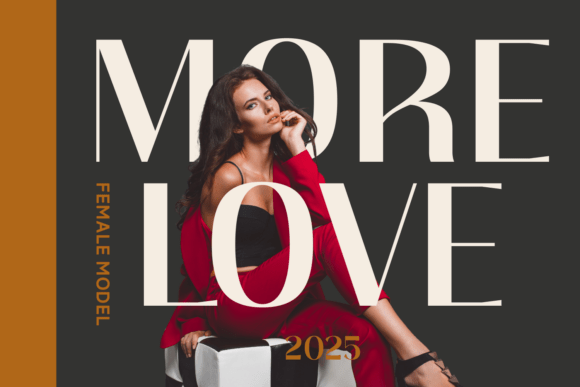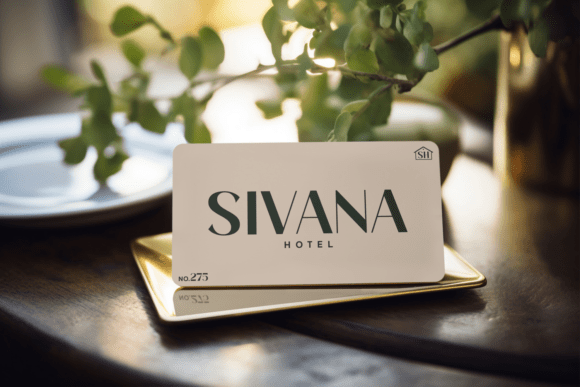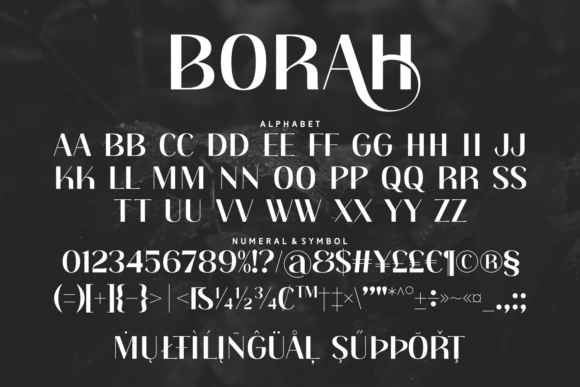
Introducing Borah Font: The Epitome of Modern Elegance
In the world of typography, few fonts manage to strike a balance between modern sleekness and luxurious sophistication. Borah Font is one such exceptional typeface that seamlessly blends geometric precision with an air of elegance, making it a go-to choice for designers and crafters aiming to elevate their visual projects.
The Design Philosophy Behind Borah
Borah Font is characterized by its sharp lines, graceful curves, and high-contrast strokes. This thoughtful design imbues Borah with a sense of luxury and refinement, setting it apart from more conventional typefaces. The sharp lines provide a crisp, modern look, while the graceful curves add a touch of softness and approachability. The high-contrast strokes further enhance the font’s sophisticated appeal, making it perfect for applications where elegance is paramount.
Versatility and Application
One of the standout features of Borah Font is its versatility. Its unique character design makes it suitable for a wide range of applications, from branding and fashion editorials to upscale packaging and high-end logos. Whether you’re creating a luxury brand identity, designing a fashion magazine spread, or crafting bespoke packaging for a premium product, Borah Font offers the perfect blend of style and sophistication.
Branding and Logos
For businesses looking to establish a high-end brand identity, Borah Font is an excellent choice. Its elegant and modern design ensures that logos and branding materials exude sophistication and class. The font’s unique character ensures that your brand stands out in a crowded marketplace, making a lasting impression on clients and customers.
Fashion Editorials and Magazines
Fashion designers and editorial teams are constantly on the lookout for typography that complements their visually stunning content. Borah Font, with its couture-inspired aesthetic, is perfectly suited for fashion editorials, magazines, and blogs. It adds an artistic sophistication to any fashion spread, enhancing the overall visual appeal and making the content more engaging for readers.
Upscale Packaging
For luxury products, packaging plays a crucial role in conveying the brand’s value and aesthetic. Borah Font, with its luxurious flair, is ideal for creating upscale packaging that reflects the premium quality of the product inside. From high-end cosmetics to luxury food items, Borah ensures that your packaging stands out on store shelves.
Why Choose Borah Font?
Borah Font is not just another typeface; it’s a design statement. Here are a few reasons why designers and crafters are gravitating towards Borah:
- Unique Character: Borah’s distinctive design ensures that your visual projects have a unique edge, setting them apart from the generic and the ordinary.
- Elegance and Sophistication: The font’s inherent elegance makes it perfect for projects that demand a high level of sophistication and class.
- Versatility: Whether it’s branding, editorials, packaging, or logos, Borah adapts seamlessly to various design needs.
- Modern Appeal: Borah’s sleek geometry and sharp lines give it a distinctly modern look, ensuring your designs feel current and fresh.
Borah Font is a game-changer for designers and crafters looking to infuse their visual projects with a touch of modern elegance and luxury. Its unique blend of sleek geometry and sophisticated flair makes it an invaluable asset in any designer’s toolkit. Whether you’re aiming to create stunning branding, captivating fashion editorials, or upscale packaging, Borah Font is your gateway to achieving unparalleled visual sophistication. Embrace Borah, and elevate your designs to new heights of elegance and refinement.